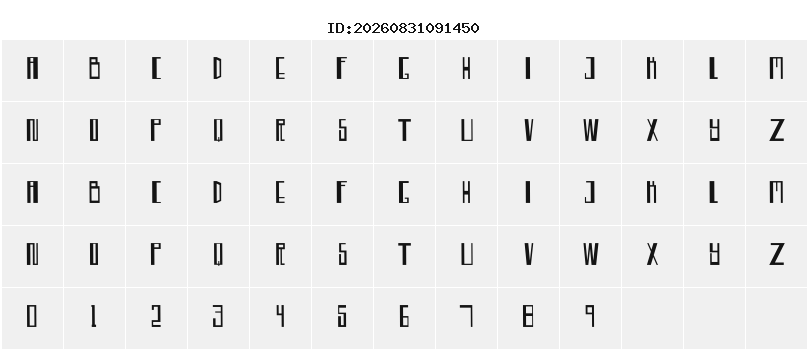
Tekno Trance Preview
• Font Name: Tekno Trance
• Designer: =^_^=
• Manufacturer: Skyhaven
About Tekno Trance.otf
Tekno Trance.otf is a modern, elegant sans-serif font designed for ultimate readability and visual harmony. Perfect for branding, headlines, web design, and print materials.